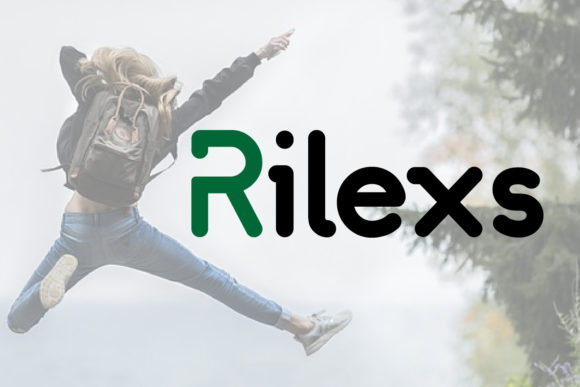
Welcome to the world of Rilexs Font, a typographic haven where elegance and innovation intertwine to create a visual symphony. Designed by the visionary da_only_aan, Rilexs Font is not just a collection of letters; it's an expression of creativity and a gateway to endless possibilities.
Rilexs Font belongs to the sans serif family, known for its clean, geometric lines and timeless appeal. Its characters exude a sense of sophistication and modernity, making it the perfect choice for those seeking a font that radiates contemporary charm. Whether you're a seasoned designer or just starting your creative journey, Rilexs Font is your perfect companion.
At first glance, Rilexs Font may seem like a simple and unassuming typeface. However, beneath its understated exterior lies a world of versatility and adaptability. It's a font that can effortlessly transform itself to suit any project, from elegant wedding invitations to dynamic branding campaigns. Its inherent flexibility allows it to shine in both digital and print media, making it a true all-rounder.
When you choose Rilexs Font, you're not just downloading a font; you're embarking on a creative adventure. It's a font that empowers you to express your individuality and bring your vision to life. Whether you're creating social media graphics, designing logos, or crafting beautiful website layouts, Rilexs Font will elevate your work and leave a lasting impression on your audience.
So, if you're ready to unlock your creative potential and embark on a typographic journey like no other, download Rilexs Font today. Let your imagination run wild as you explore the endless possibilities that await you within its elegant curves and crisp lines. The world of design is your canvas, and Rilexs Font is your brush – paint your masterpiece and captivate the world with your vision.